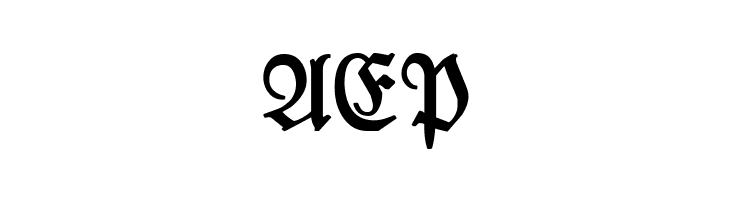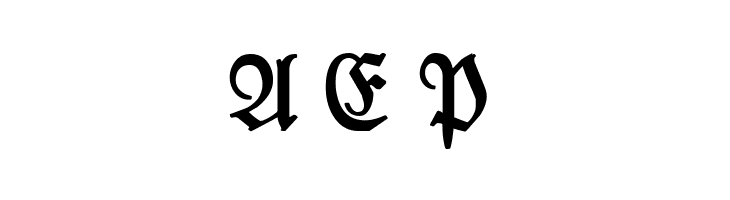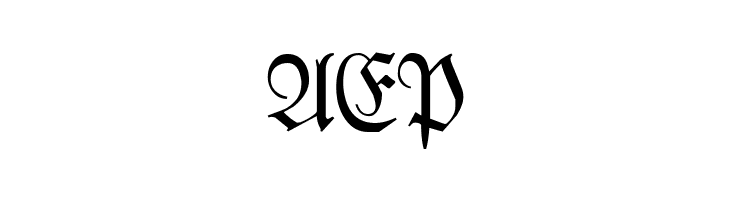
A traditional Blackletter font with ornate, medieval-inspired letterforms.
A classic Gothic-style font with ornate and intricate design elements.
( Fonts by Peter Wiegel - www.peter-wiegel.de )
A traditional Blackletter font with ornate, angular designs and historical elegance.
A traditional blackletter font with intricate, ornate letterforms and a historical elegance.